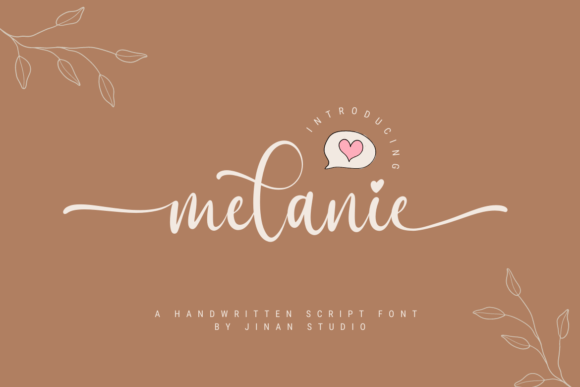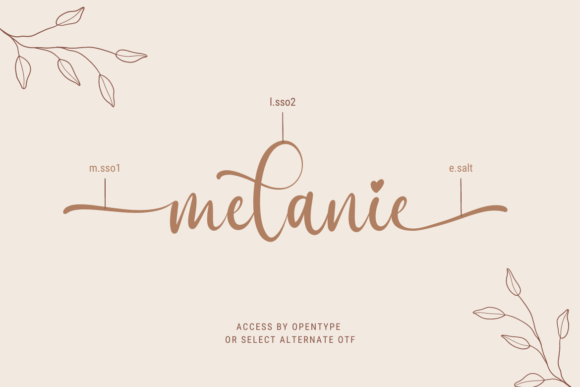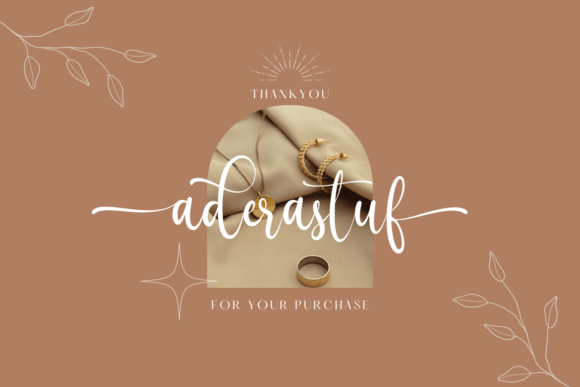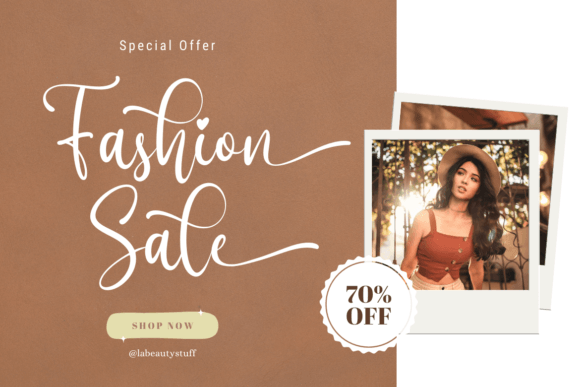
Melanie Font: Elegant Script for Wedding Invitations & Feminine Branding
About the Melanie Font
Add a touch of class to your work with the Melanie Font, a truly exceptional typeface. Melanie is a stunning and sophisticated font that radiates beauty and grace. With its graceful flourishes and sweeping curves, this font is perfect for wedding invitations, branding materials, and other projects where a lovely and stylish script is desired to create a timeless and elegant look.
Keep in mind that the font is PUA encoded, meaning that you can access all delightful glyphs and swashes effortlessly.
Melanie’s elegant, flowing forms make it ideal for headlines, short text blocks on invitations or branding materials, and even luxury packaging where a touch of classic sophistication is desired. Avoid using it for body text or lengthy paragraphs; its delicate strokes would become difficult to read at smaller sizes.
The font’s inherent grace pairs well with clean sans-serif fonts like Montserrat or Lato for a balanced contrast, or a more modern geometric sans-serif like Futura for a striking juxtaposition. For a slightly more traditional feel, consider pairing it with a classic serif like Garamond or a subtle slab serif for added weight and structure.
Melanie projects an air of refined elegance and timeless charm, making it perfect for brands focused on luxury goods, high-end services, or events requiring a sophisticated aesthetic. Its personality is best described as graceful and sophisticated, not playful or informal.
Melanie Font Usage Examples
Melanie Font Example